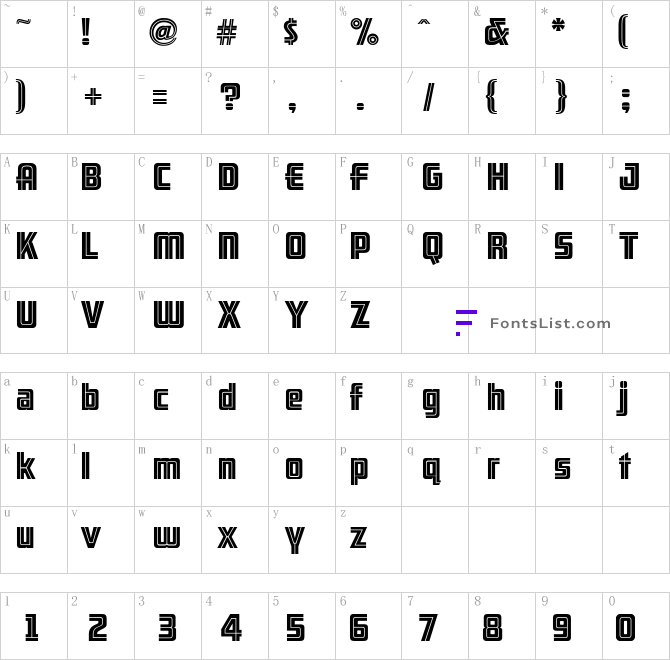
ARB-66-Neon-Line-JUN-37.ttf is a very beautiful artistic font, ARB-66-Neon-Line-JUN-37.ttf is widely used in the design and printing of various books and pictures,ARB-66-Neon-Line-JUN-37.ttf has a strong visual impact,ARB-66-Neon-Line-JUN-37.ttf is a commonly used font in newspapers, magazines and books, and is used in posters, e-commerce Poster design, store design, logo design, font design and other fields.ARB-66-Neon-Line-JUN-37.